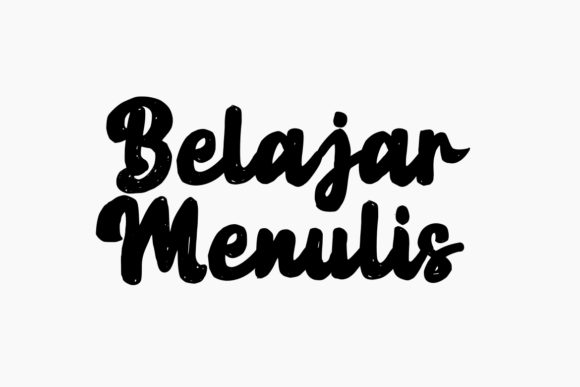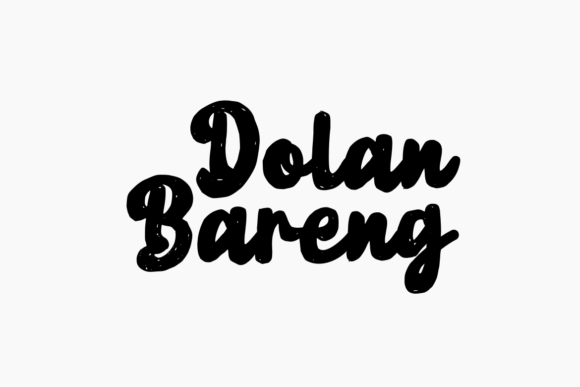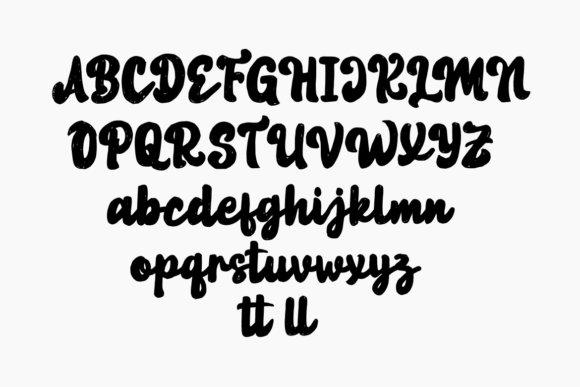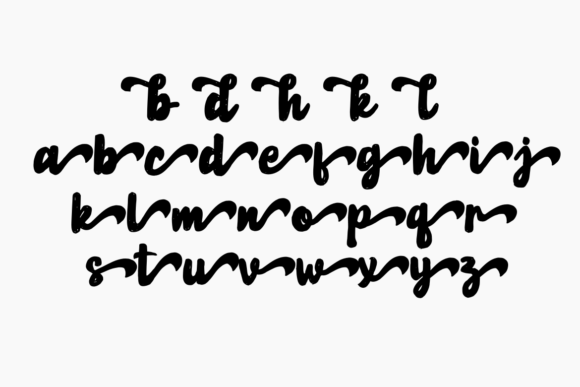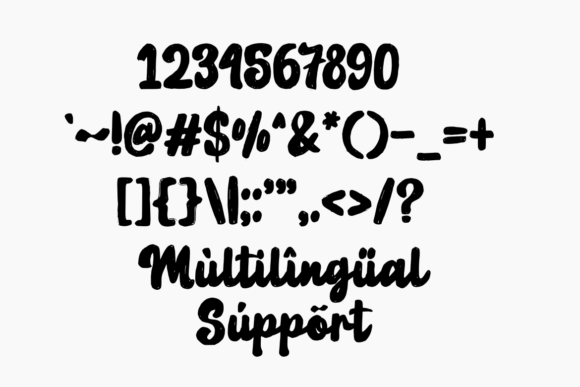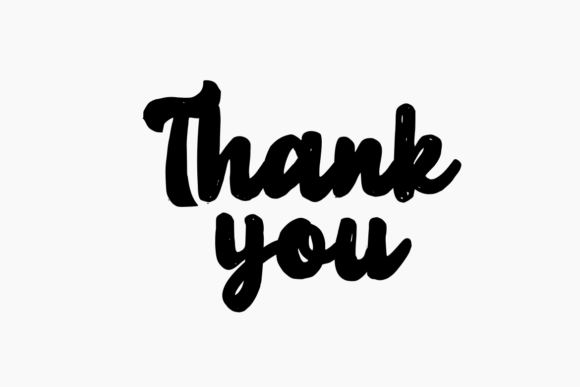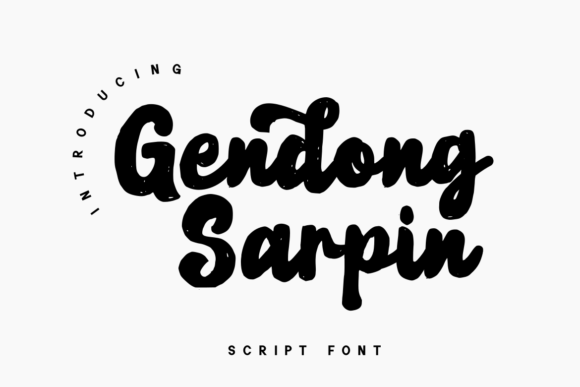
Gendong Sarpin Font: Elevate Your Designs with Elegance and Sophistication
In the world of typography, a font can make or break a design. For designers and crafters seeking to add a touch of elegance and sophistication to their projects, Gendong Sarpin font is an exceptional choice. This stylish and incredibly elegant script font has gained popularity for its versatility and stunning appearance, making it perfect for a wide range of design applications.
What is Gendong Sarpin Font?
Gendong Sarpin is a beautifully crafted script font that exudes elegance and refinement. Its flowing lines, intricate details, and classic feel make it an ideal choice for designs that require a handwritten touch. Whether you’re working on wedding invitations, thank you cards, quotes, greeting cards, logos, or business cards, Gendong Sarpin font is sure to impress.
Key Features of Gendong Sarpin Font
- Elegant and Refined: Gendong Sarpin font boasts a sophisticated and elegant appearance, perfect for designs that require a touch of luxury and refinement.
- Versatile: This script font can be used for a wide range of design applications, from wedding invitations and greeting cards to logos and business cards.
- Handwritten Touch: Gendong Sarpin font adds a personal and human touch to your designs, making them more relatable and engaging.
- High-Quality: This font is crafted with attention to detail, ensuring a high-quality appearance in any design.
Design Applications for Gendong Sarpin Font
Gendong Sarpin font is an excellent choice for various design projects, including:
- Wedding Invitations: Add a touch of elegance and sophistication to your wedding invitations with Gendong Sarpin font.
- Thank You Cards: Express your gratitude with beautifully designed thank you cards featuring Gendong Sarpin font.
- Quotes: Make your quotes stand out with the elegant and refined appearance of Gendong Sarpin font.
- Greeting Cards: Create stunning greeting cards for special occasions, such as birthdays, anniversaries, and holidays.
- Logos: Use Gendong Sarpin font to create a sophisticated and memorable logo for your business or brand.
- Business Cards: Elevate your business cards with the elegant and refined appearance of Gendong Sarpin font.
Tips for Using Gendong Sarpin Font
To get the most out of Gendong Sarpin font, consider the following tips:
- Pair with Simple Fonts: Pair Gendong Sarpin font with simple and clean fonts to create a beautiful contrast and enhance readability.
- Use for Headings: Use Gendong Sarpin font for headings and titles to add a touch of elegance and sophistication.
- Experiment with Colors: Experiment with different colors to find the perfect match for your design and make Gendong Sarpin font stand out.
Gendong Sarpin font is an exceptional choice for designers and crafters seeking to add a touch of elegance and sophistication to their projects. With its elegant and refined appearance, versatility, and high-quality craftsmanship, this script font is perfect for a wide range of design applications. By incorporating Gendong Sarpin font into your designs, you’ll be able to create stunning and memorable projects that leave a lasting impression.